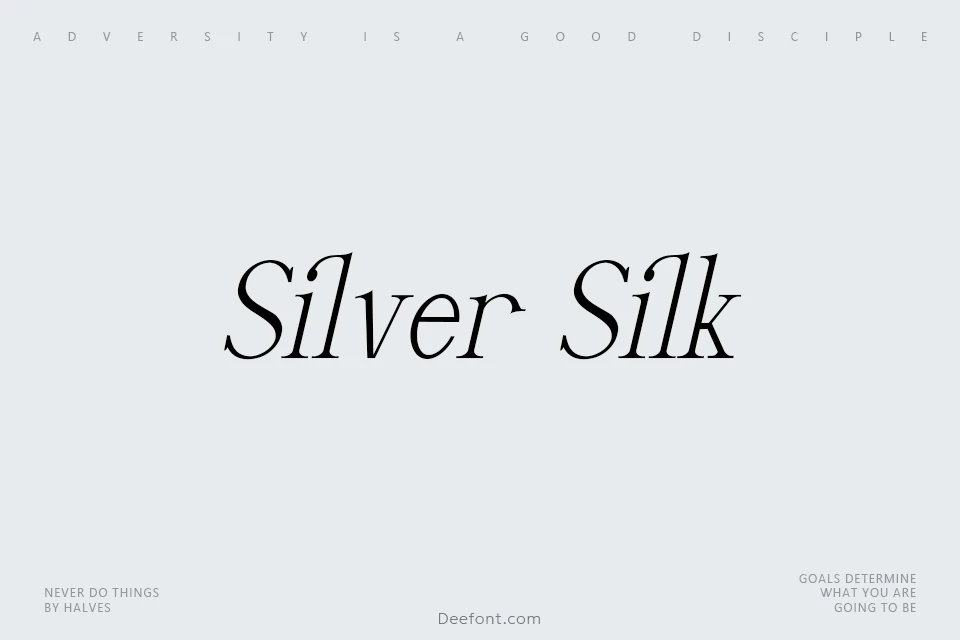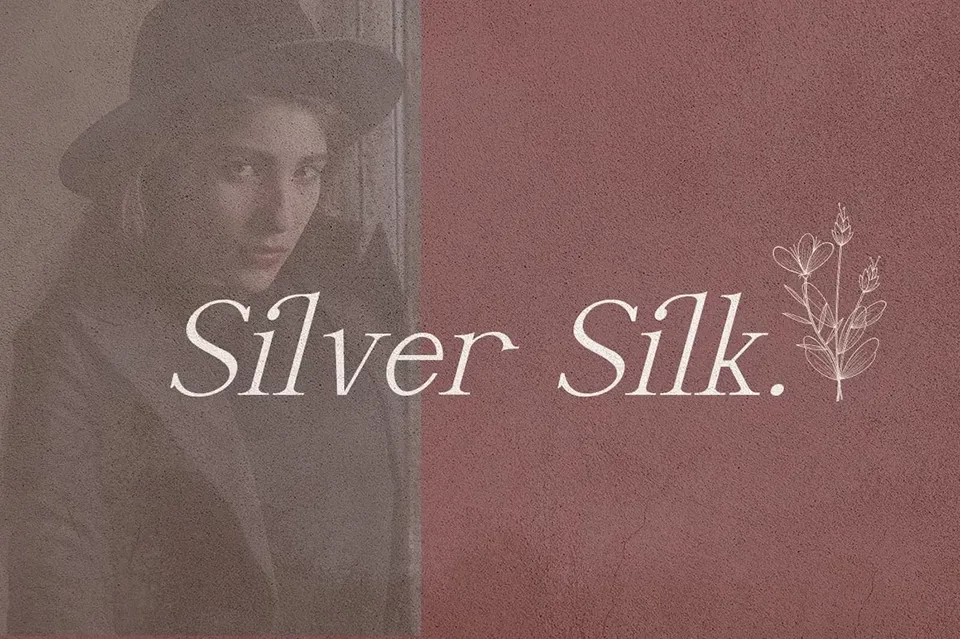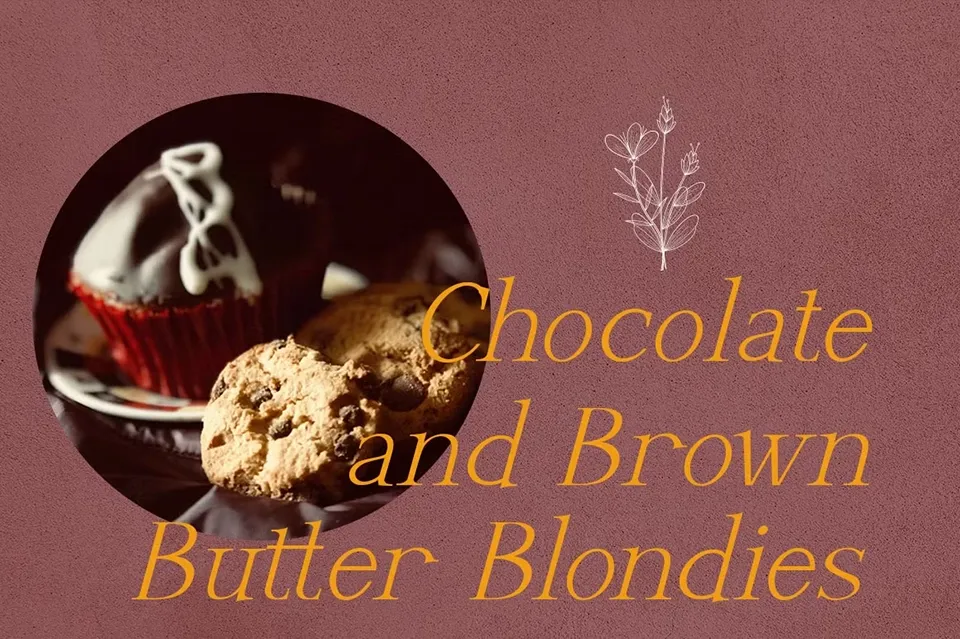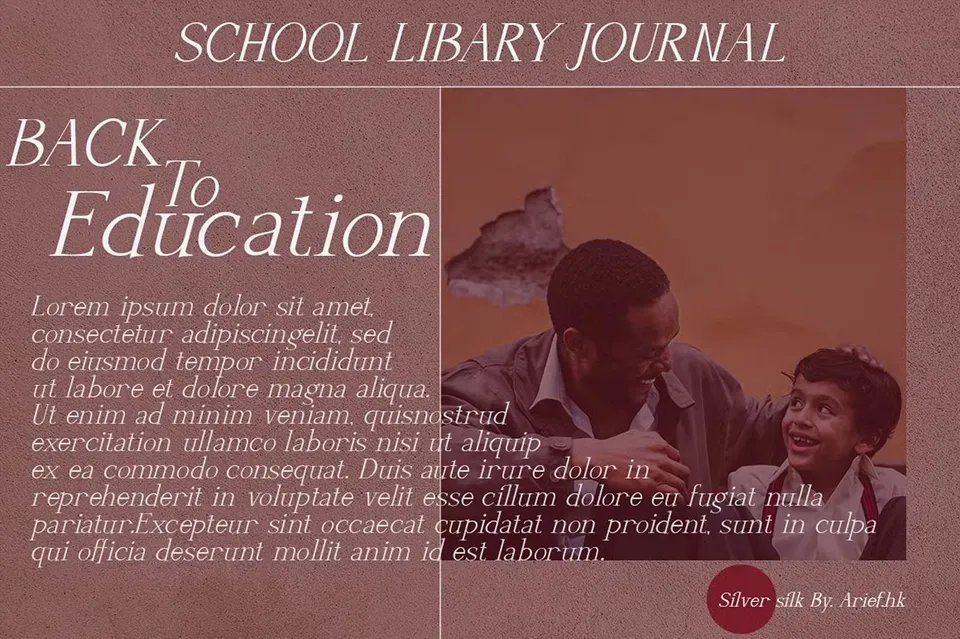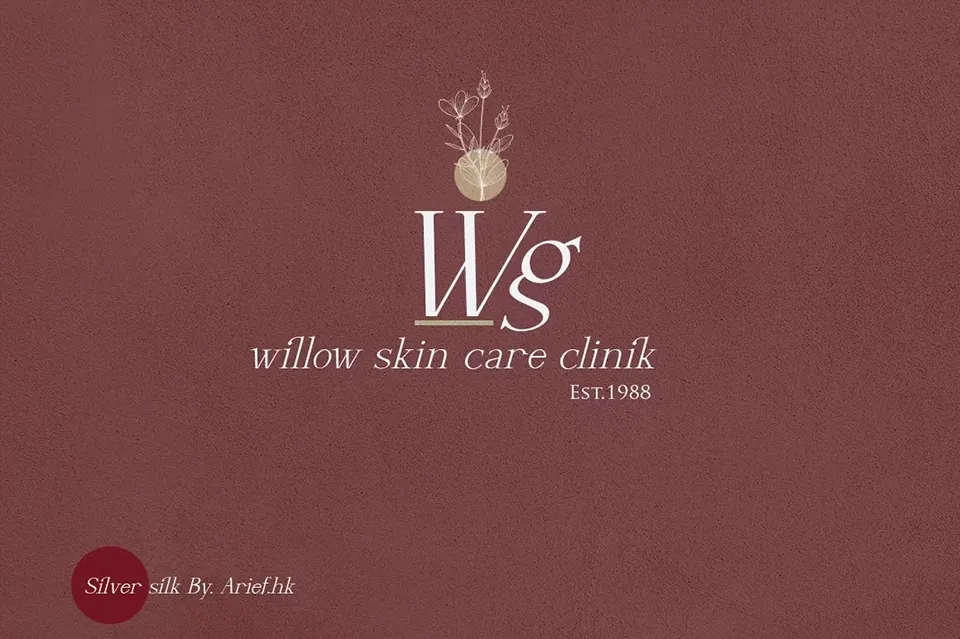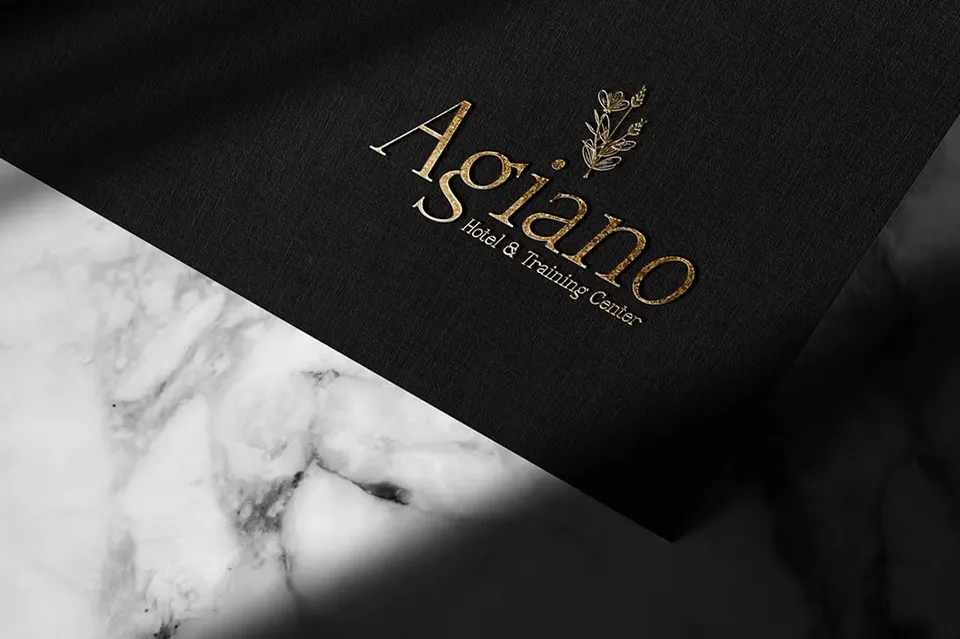
Silver Silk Font
The Silver Silk Font font is a sophisticated and elegant serif typeface designed to bring a touch of refinement to your creative projects. Its graceful curves and stylish details make it ideal for branding, editorial design, invitations, and more, providing a timeless and versatile look for both digital and print applications.